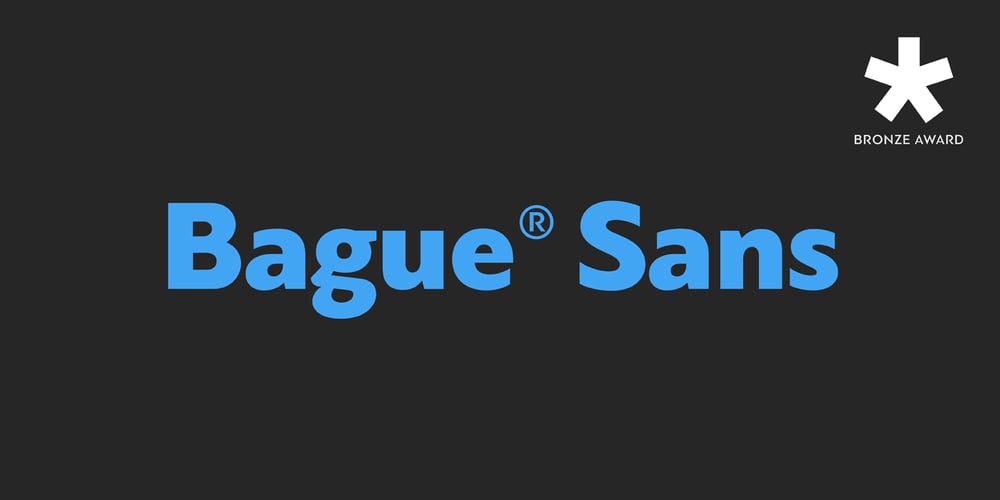
PF Bague Sans Std
PF Bague Sans Std font
PF Bague Sans Std Font Family was designed by Panos Vassiliou and published by Parachute. PF Bague Sans Std contains 18 styles and family package options. Bague Sans is an award-winning monoline typeface with a distinct and eye-catching personality. Despite its inspiration from early 20th century geometrics, it diverts from the mechanical rigidity of those typefaces by incorporating humanist characteristics, such as subtle variations in stroke width and open counter shapes with vertical endings. This is a very clean and legible typeface with a warm and well-balanced texture which is ideal for intense editorial use in magazines and newspapers. The most remarkable feature of Bague Sans is its vast array of uppercase alternates and ligatures which truly shine when set at display sizes. This typeface is automatically transformed into a flexible, charming and stylish typeface with strong modern aesthetics. Explore its dual personality, switch from Humanist to Geometric and vice versa by using alternate characters such as the single-storey a and single-storey g. From classic to modern, from excessive to neutral, Bague Sans is a multipurpose typeface which offers enormous possibilities and variations for editorial design, branding and corporate identity while it performs amazingly well on web. This superfamily includes 18 weights from Hairline to Ultra Black with a consistent and well-refined structure. It supports extended Latin such as Central European, Baltic, Turkish, Romanian and includes numerous alternates and ligatures for unlimited text variations. You may also want to check out Bague Sans Pro which supports Cyrillic and Greek as well.